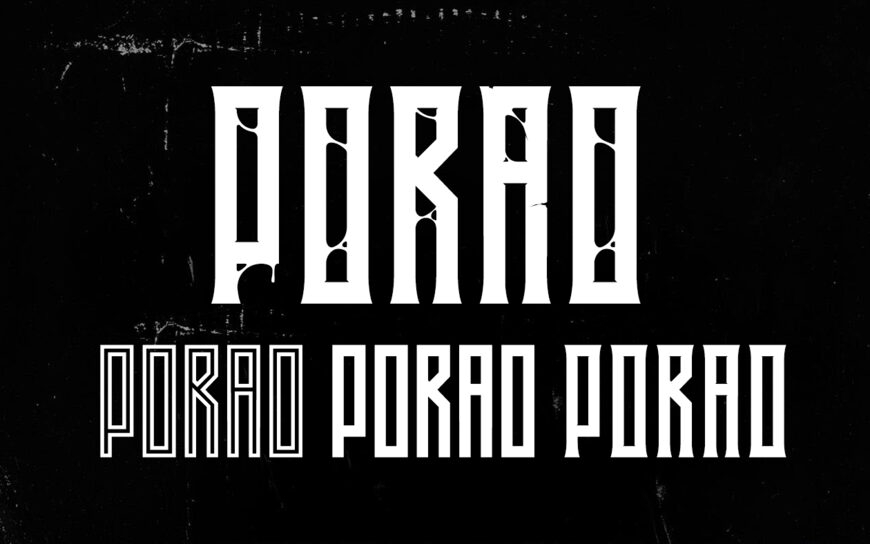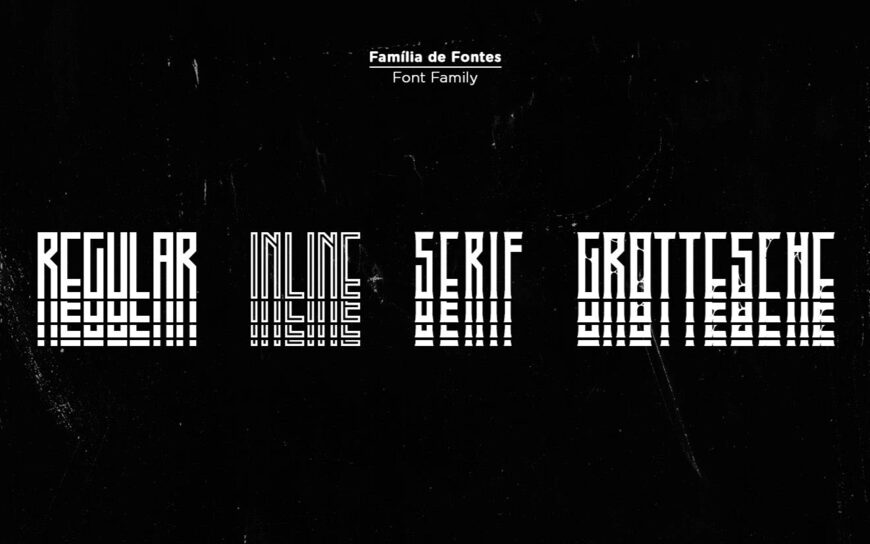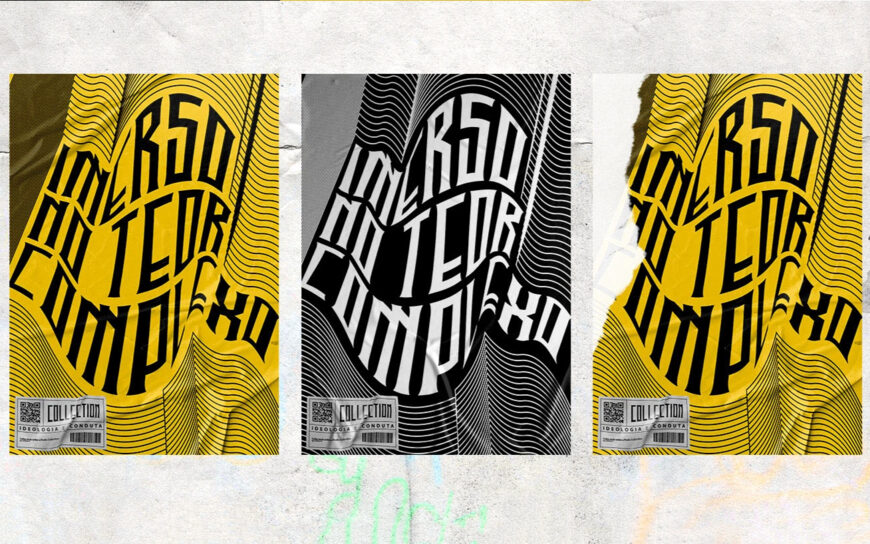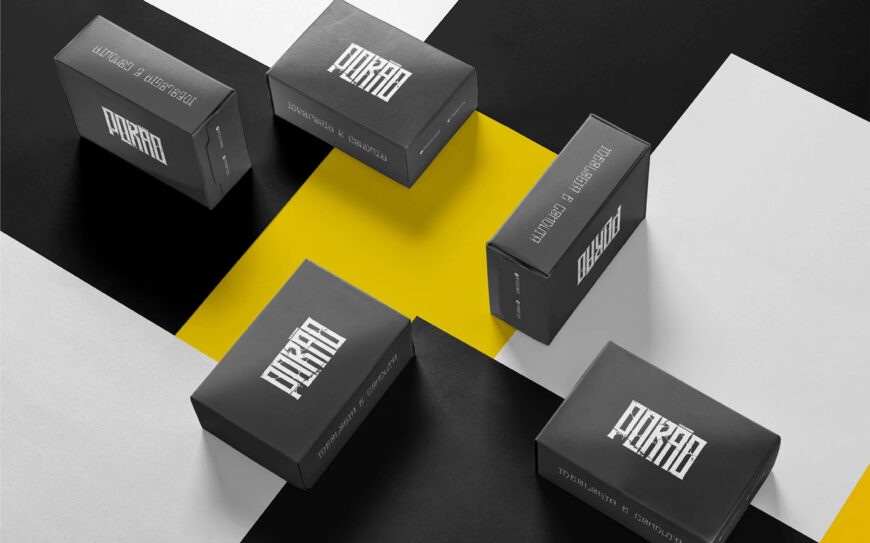
Porao Font Family
Porao, from Caio Designer, is a moody, underground scene/street vibe font. This typeface includes four versions; Regular, Serif, Inline, and Grottesche.
This font family is perfect for, posters, apparel, headlines, branding, logo design, product packaging, and more.